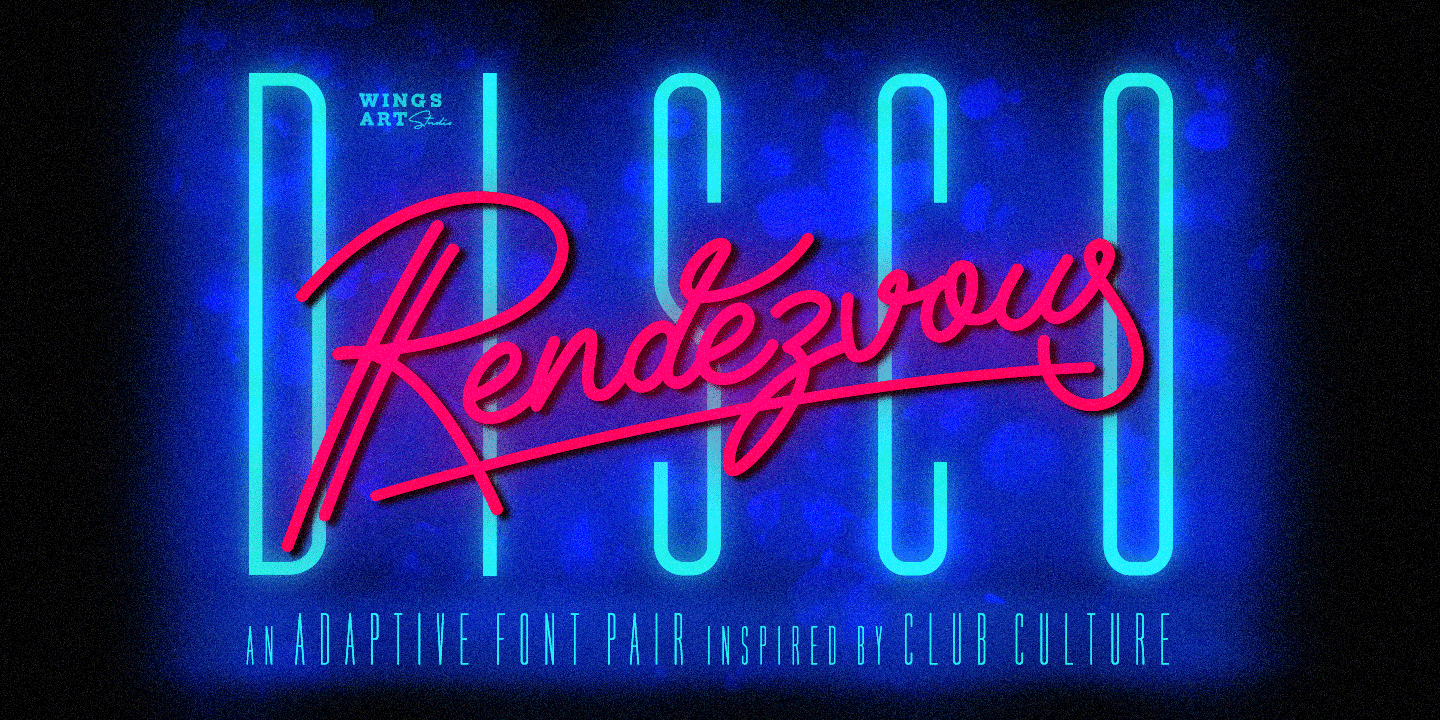
The Disco Rendezvous Font Free Download is a dazzling and vibrant typeface, making it an excellent choice for designs that aim to capture the glittering energy, retro charm, and unmistakable flair of the disco era. This electrifying font is perfectly suited for 70s and 80s themed party invitations, nightclub promotions, music album covers, fashion brand collateral for vintage styles, event posters, and fun social media graphics. Imagine it illuminating the poster for a throwback dance party, providing the groovy typography for a retro arcade game, or giving a shimmering personality to the logo of a roller-skating rink. Its bold, often ornate forms and undeniable swagger ensure your message is delivered with undeniable pizzazz and an infectious sense of celebration.
What makes Disco Rendezvous Font truly exciting is its ability to instantly transport viewers back to an era of glittering dance floors and pulsating beats. It's not just a display font; it embodies a raw, celebratory energy and a distinct, unapologetic personality that makes it incredibly compelling. The often-geometric yet fluid shapes, sometimes with inline or layered effects, give it an authentic retro feel, reminiscent of iconic album art and marquee signs. Designers will appreciate how it immediately adds a flamboyant, attention-grabbing quality to any project, making it ideal for designs that need to evoke nostalgia, excitement, and a whole lot of fun.
The Disco Rendezvous Font family typically focuses on its singular, impactful display style, as its strength lies in its inherent thematic and stylistic flair. While you might primarily find a Regular option, its power comes from its unique visual effect rather than a broad range of weights. Some versions might offer variations like Outline, Shadow, or Solid options that can be layered to create even more dynamic and authentic disco effects, or unique ligatures and alternative characters to enhance its decorative appeal. These focused design choices ensure that the Disco Rendezvous Font Free Download provides ample creative opportunities to craft truly spirited, eye-catching, and visually captivating designs that scream "party!"